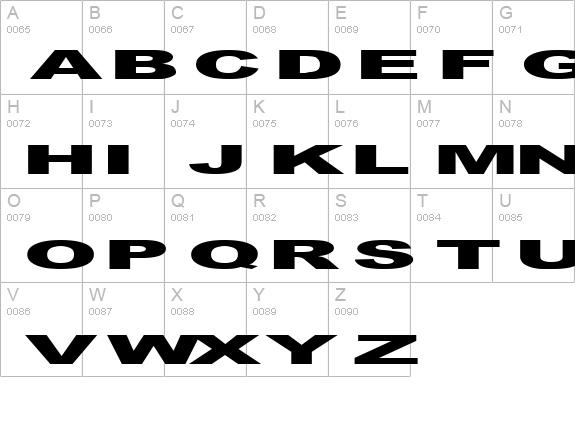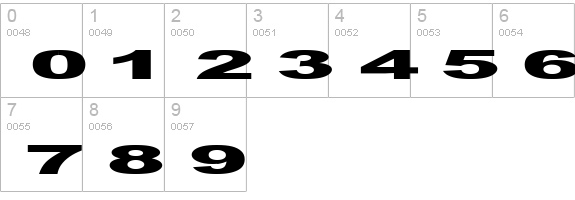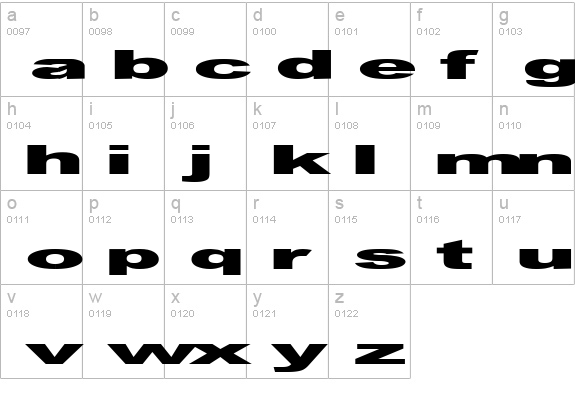
GF Vienna heavy Font Details
GF Vienna heavy is a heavy, high-impact variant in the GF typeface family \xE2\x80\x94 well suited to high-impact headlines, posters, and display advertising.
The GF Vienna Heavy font exudes a strong and bold presence, perfect for making a statement in your designs. Its thick, powerful strokes convey a sense of confidence and authority, making it ideal for headlines, titles, and branding projects. The distinctive letterforms of GF Vienna Heavy command attention and leave a lasting impression on viewers. And the best part? GF Vienna Heavy is available for free download at FontsMarket.com! Embrace the versatility and impact of this font in your creative projects without any cost. Add a touch of sophistication and strength to your designs with GF Vienna Heavy, the go-to choice for those seeking a bold and impactful typeface. Download it now and elevate your design game to new heights!